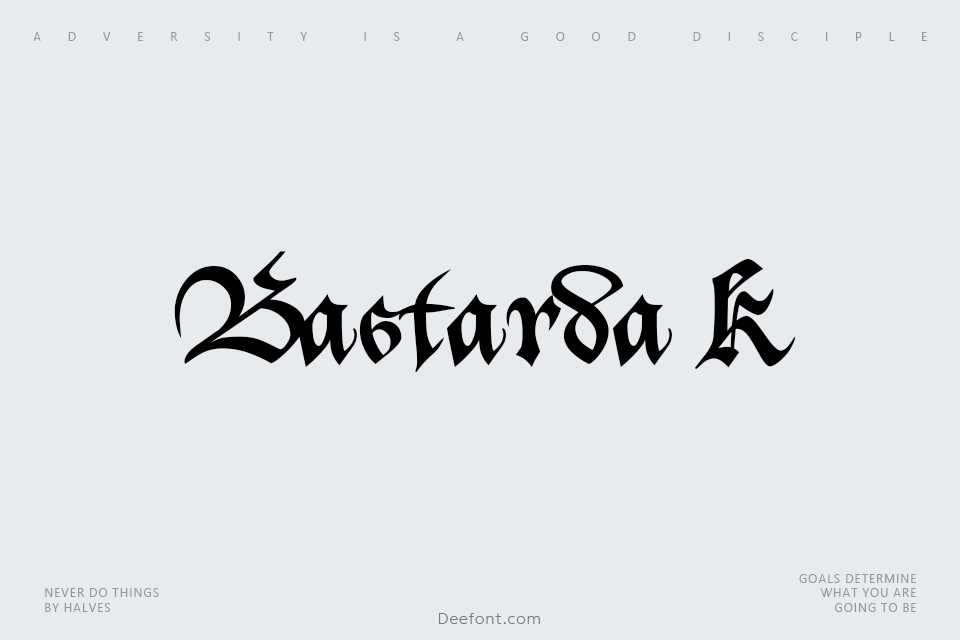
Bastarda K Font
Bastarda K is a striking Gothic font inspired by medieval blackletter script, designed to bring authentic historical character to your typography. This elegant typeface features intricate details with sharp, bold strokes characteristic of medieval calligraphy, making it ideal for creating dramatic headlines, decorative text, and designs that require authentic period authenticity. Perfect for posters, book covers, invitations, and branding projects that demand a touch of classical elegance and historical flair.